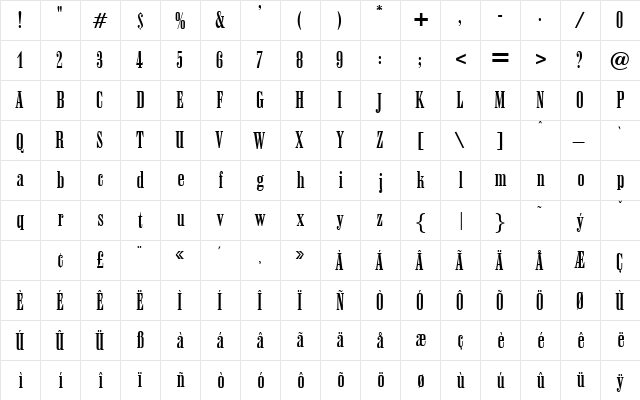
Anaconda DB Regular
Design Context for Anaconda DB Typeface
Anaconda DB offers clean, dependable letterforms without strong stylistic allegiance, making it a practical choice for designers who need flexibility. The condensed width makes it efficient for tight spaces without sacrificing legibility.